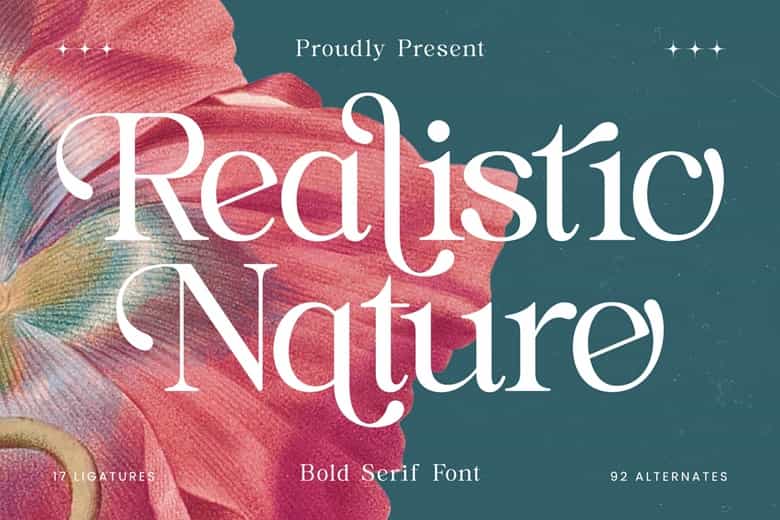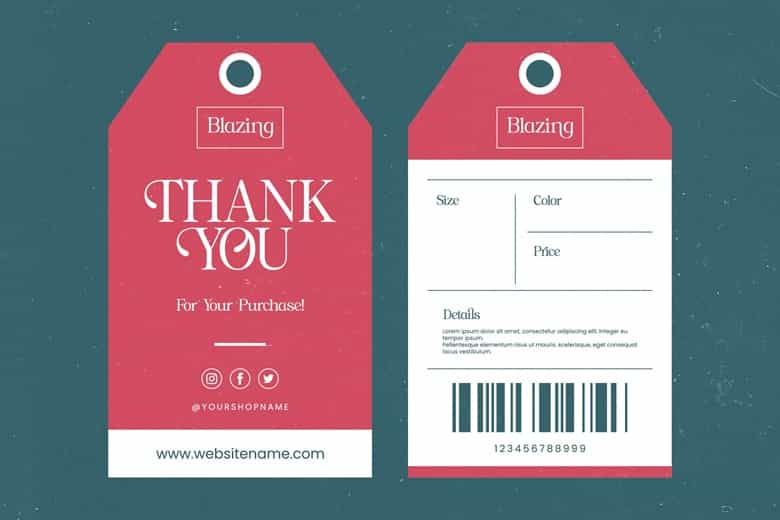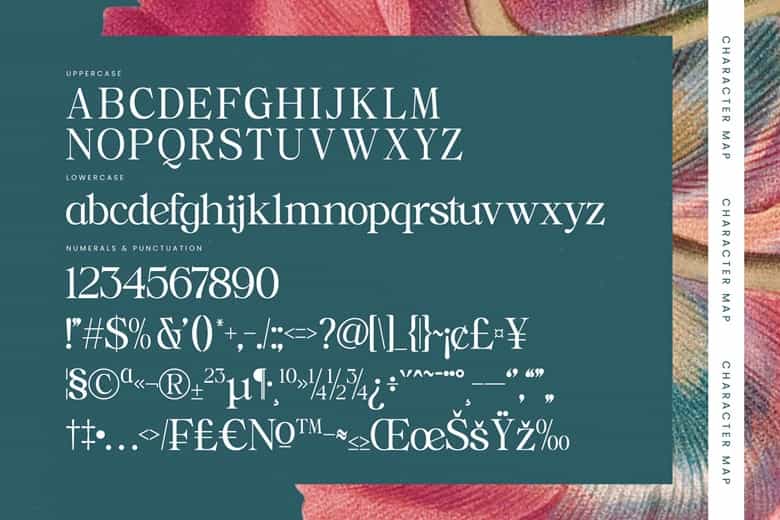
Realistic Nature is a new serif typeface, Suitable for any projects such as: Logo design, branding, home accessories, product packaging, mugs, quotes, posters, shopping bags, t-shirts, book covers, name card, invitation, greeting card, label, photography, watermark, special event and all your other elegant and delightful projects that require a touch of luxury serif.